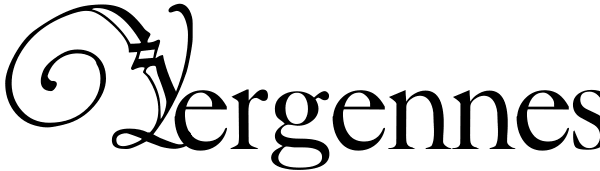
Vergennes
Vergennes is a decorative script font featuring ornate, calligraphic decorative initials based on 19th century metal type. It has a full character set with lower case and numerals, but the upper case initials are the standout feature